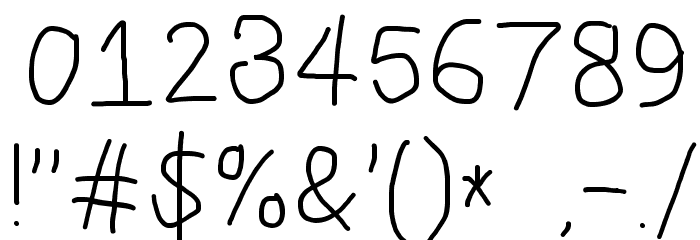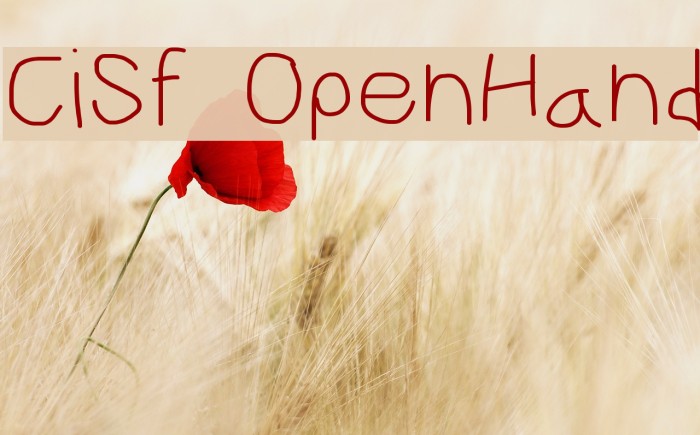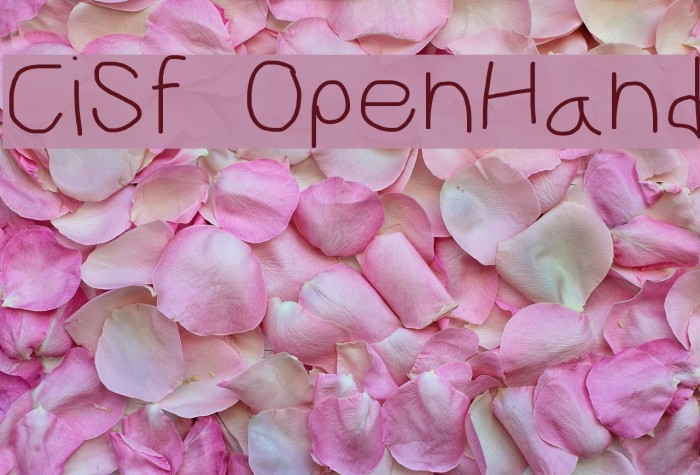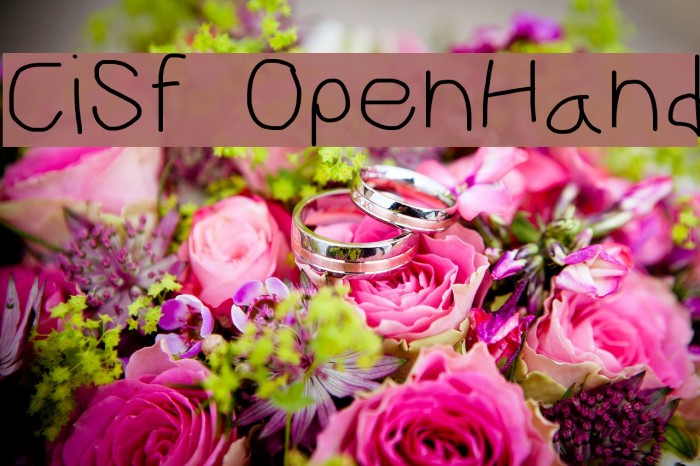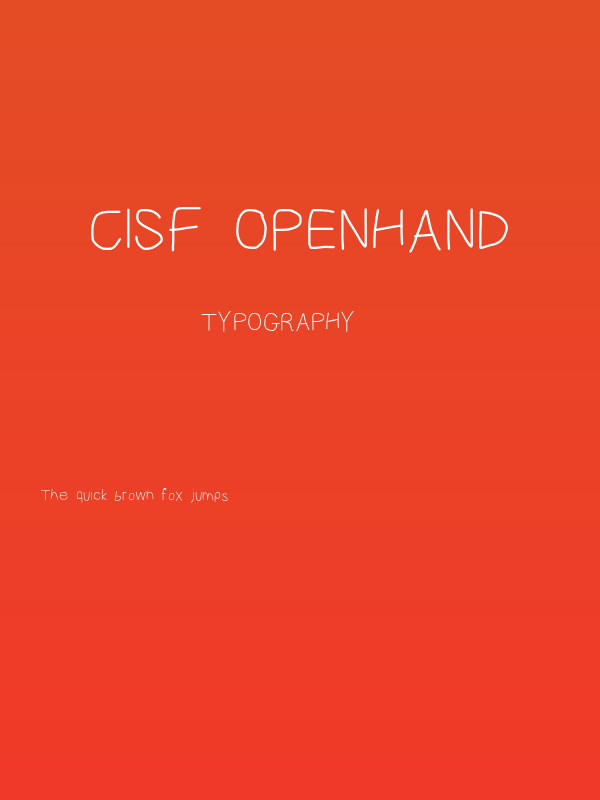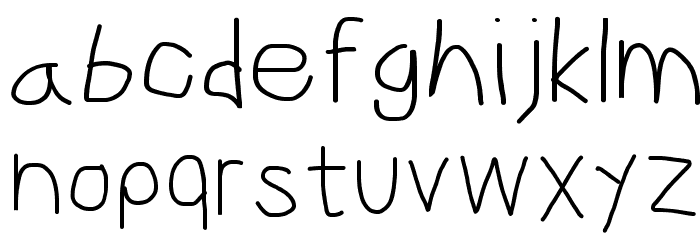
CiSf OpenHand Font
CiSf OpenHand Description
This font features a playful and casual handwritten style, characterized by its irregular and organic letterforms. Each character appears as if it were drawn with a pen, giving it a personal and approachable feel. The strokes are consistent in width, with a slight variation that adds to the hand-drawn aesthetic. The uppercase letters are slightly taller than the lowercase, maintaining a uniform height that ensures readability. The numbers and special characters follow the same informal style, making the font versatile for various creative applications. Its simplicity and charm make it suitable for projects that require a friendly and informal touch.
| Proposed Projects | Ideal for greeting cards, children's books, personal blogs, and informal branding. |